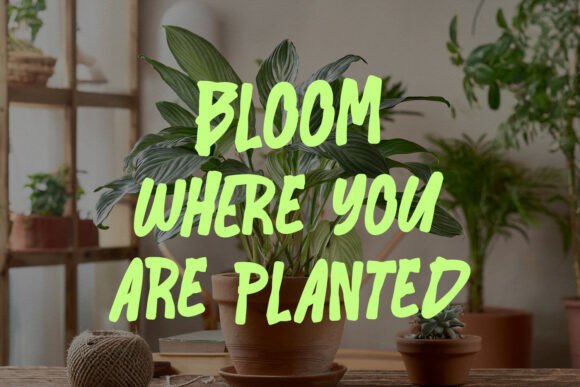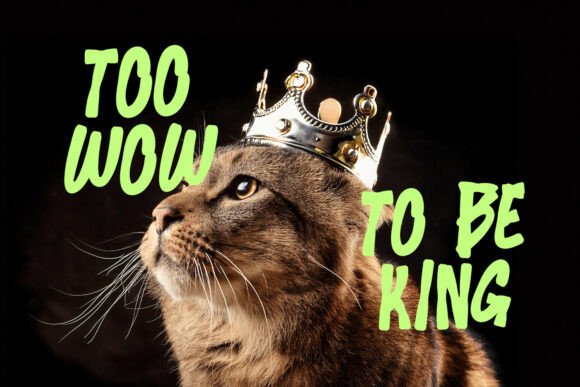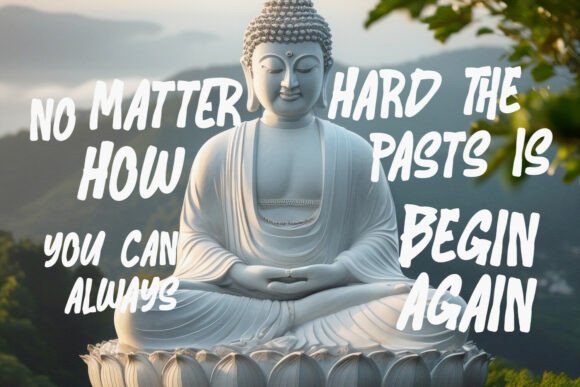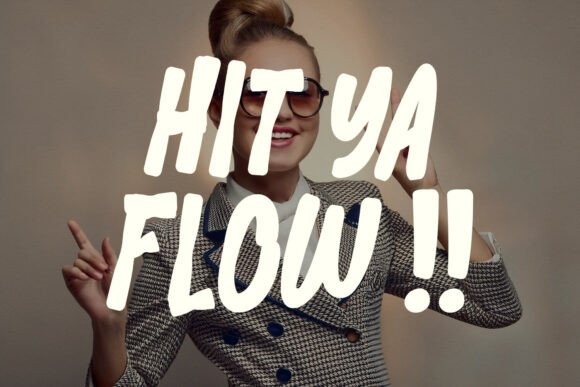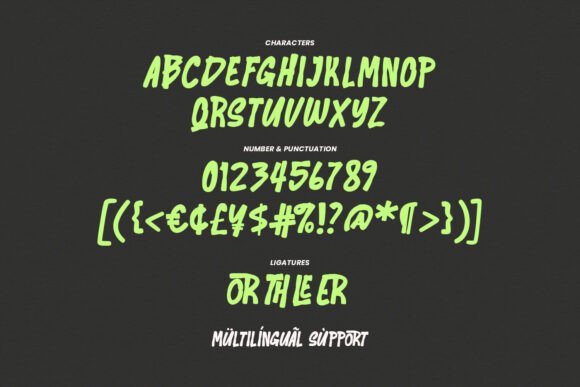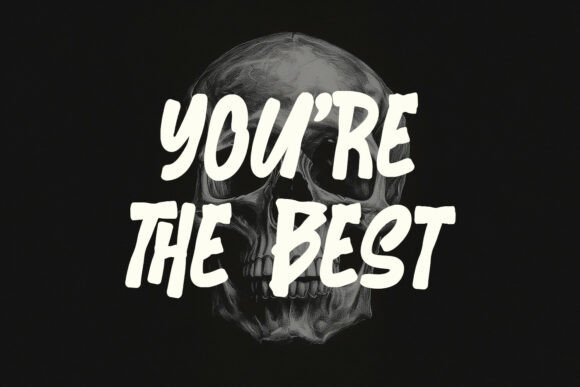
Introduction to Lemert Morlet Font
Lemert Morlet is a striking display font that combines bold, hand-drawn aesthetics with a vibrant, energetic personality.
Characterized by its thick strokes and irregular, organic shapes, this typeface exudes a sense of spontaneous creativity and fun It features a full set of uppercase characters, numerals, and extensive punctuation, along with unique ligatures that enhance its fluid, custom feel.
Key Features of Lemert Morlet Font
Why Choose Lemert Morlet Font?